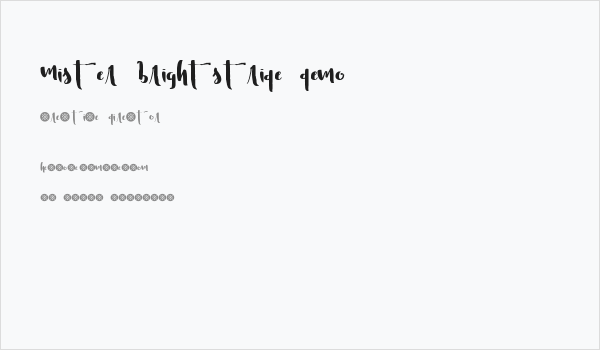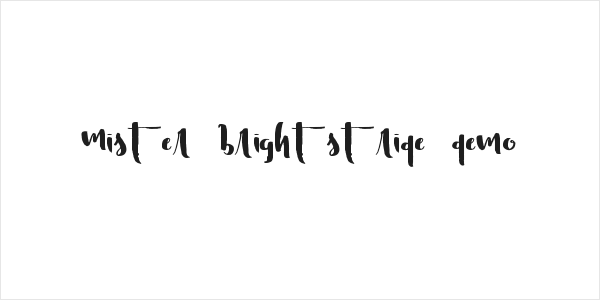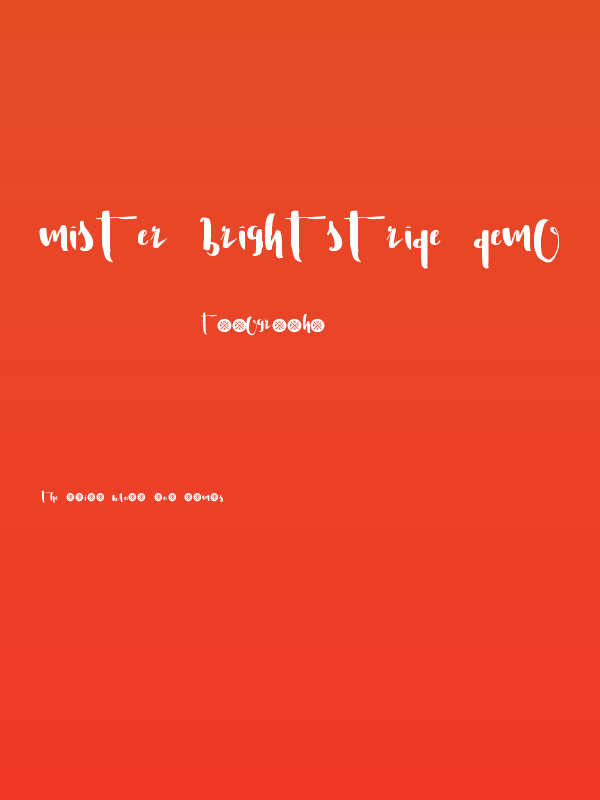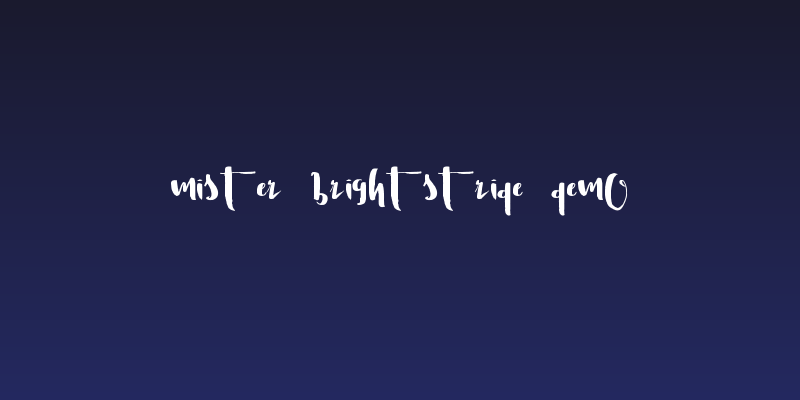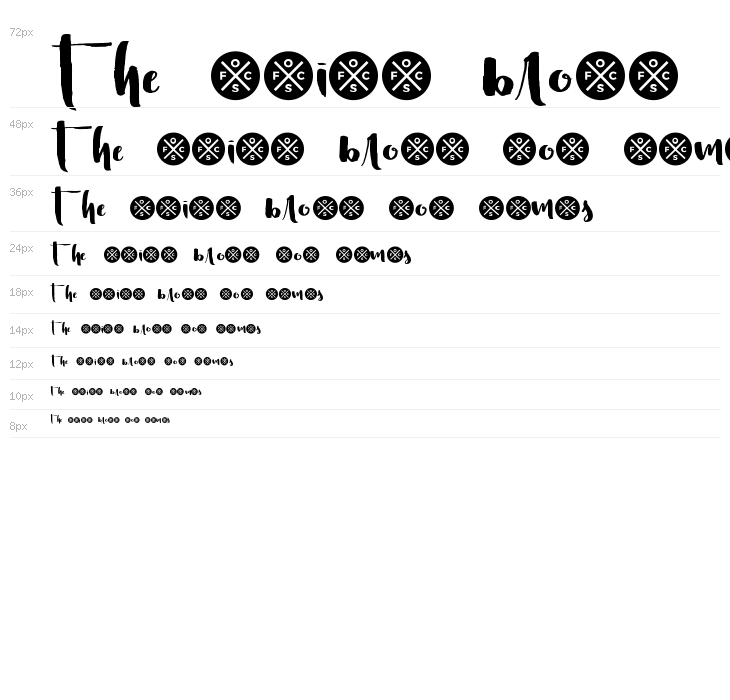
Mister Brightstride Demo Font
Mister Brightstride Demo Description
This font features a bold and expressive handwritten style with a brush-like appearance. The characters are crafted with a sense of movement and fluidity, showcasing varying stroke widths that add a dynamic and artistic flair. The letters have a slightly irregular baseline, enhancing the casual and creative feel. This font is perfect for projects that require a personal touch, such as invitations, posters, or branding materials. Its unique style makes it stand out, offering a blend of modernity and artistic expression.
| Overall Style | Modern, Artistic |
| Proposed Projects | Ideal for invitations, posters, branding, and creative projects needing a personal touch. |